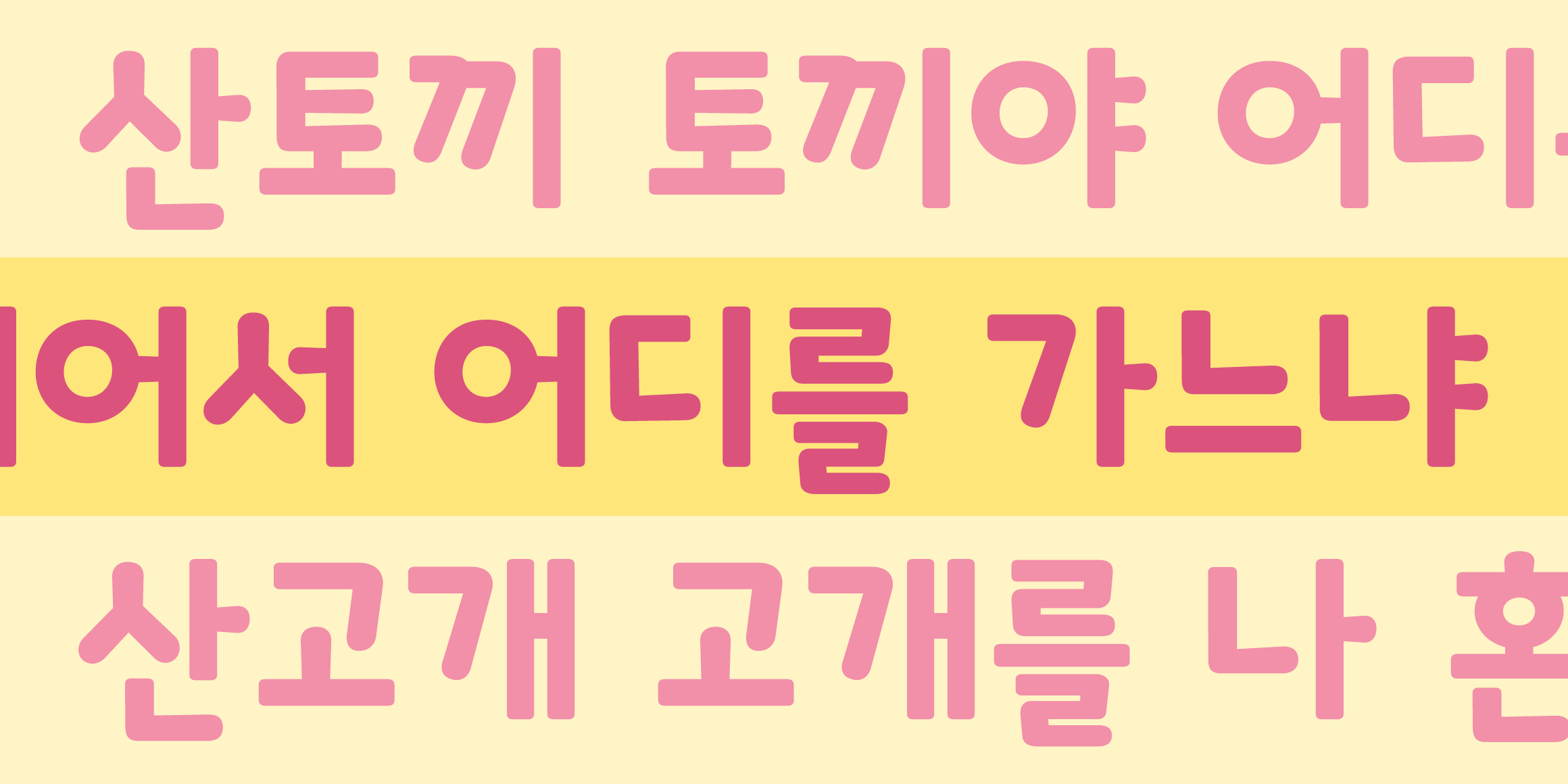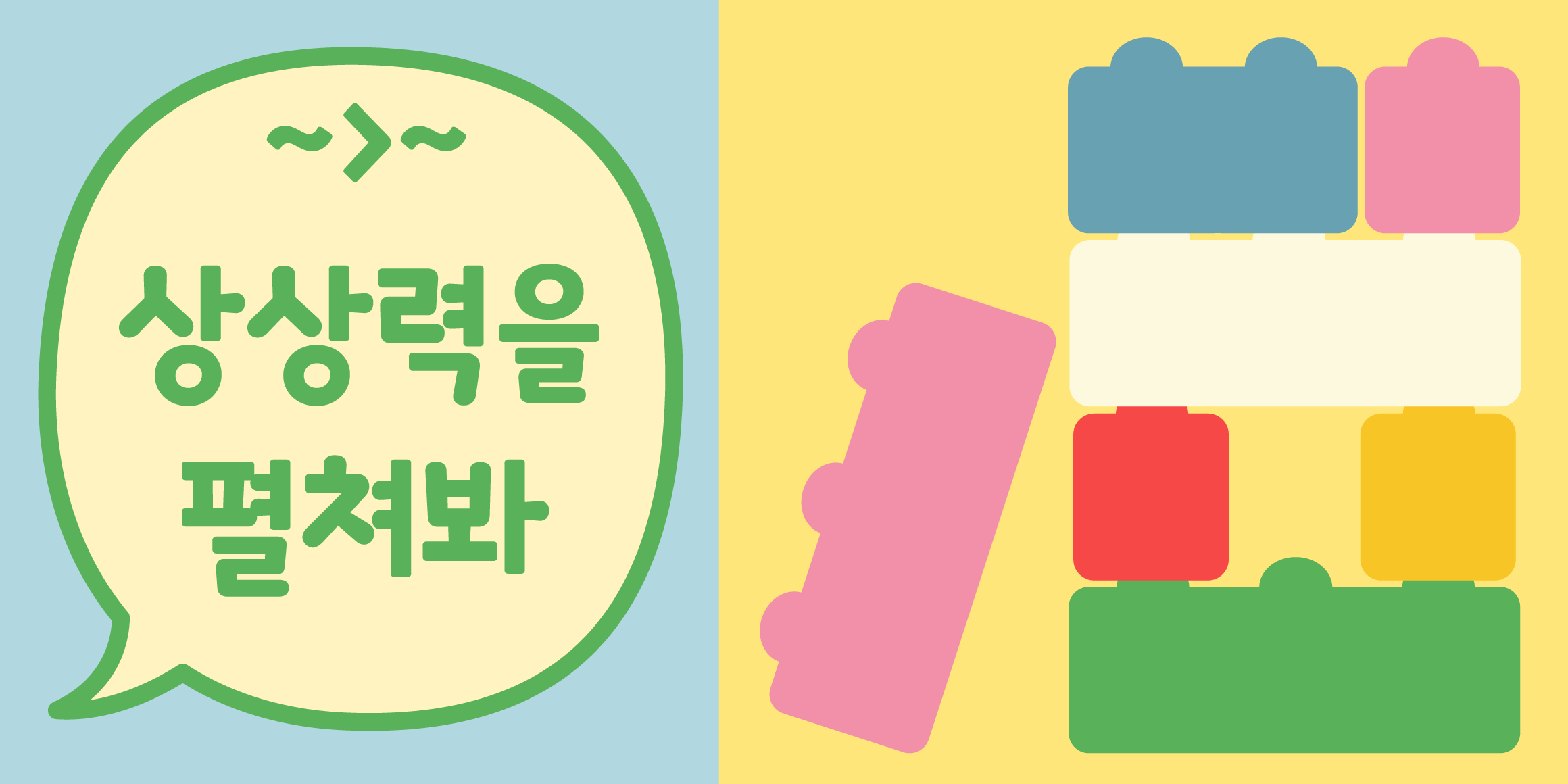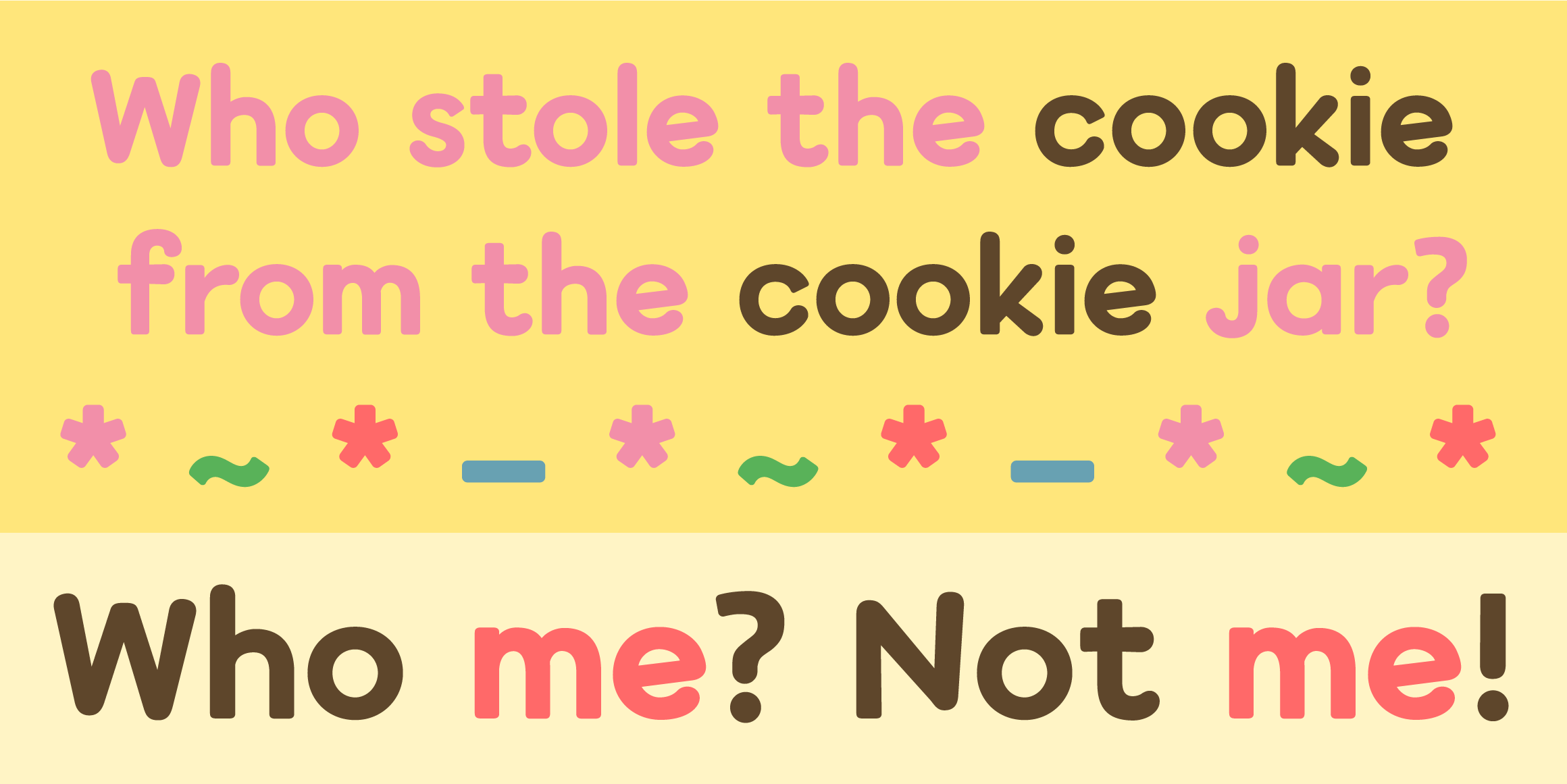
It features a clean, geometric structure combined with softly rounded terminals, creating a gentle and playful feel.
It is versatile and can be used across a wide range of design applications.
- Tium 블록쌓기 / Tium Blocks